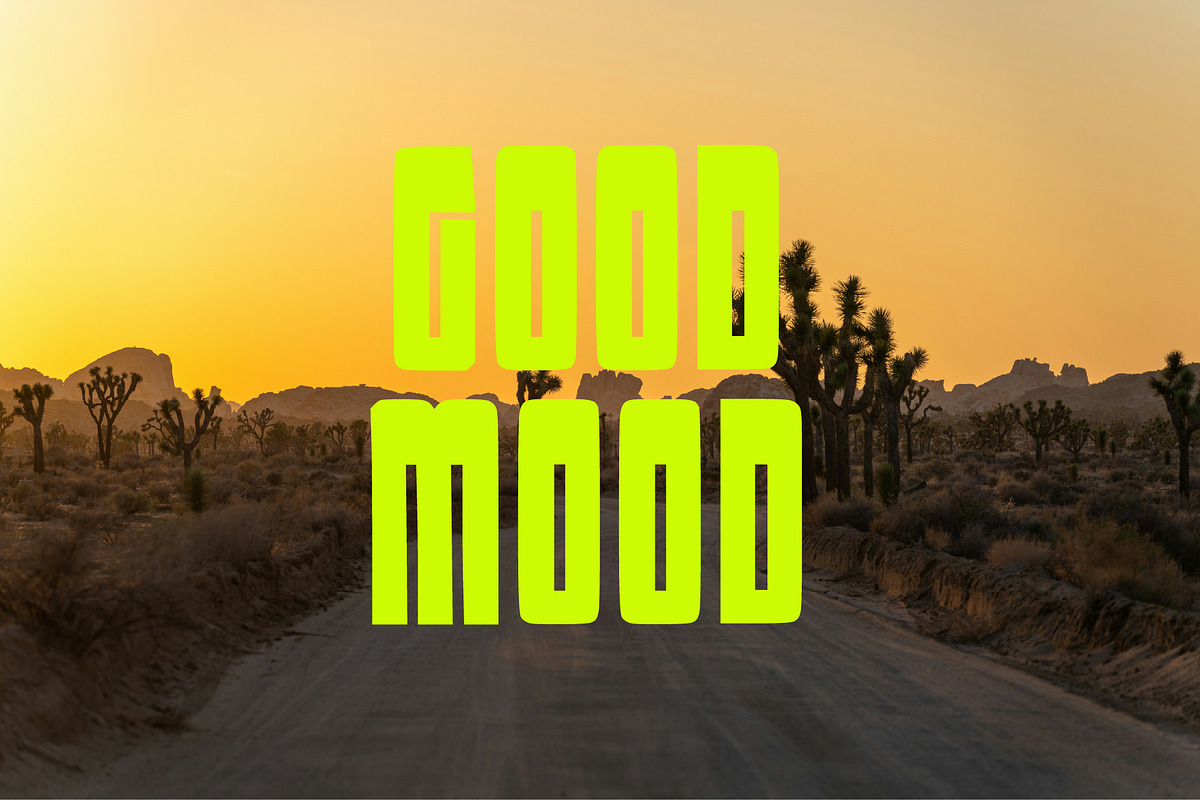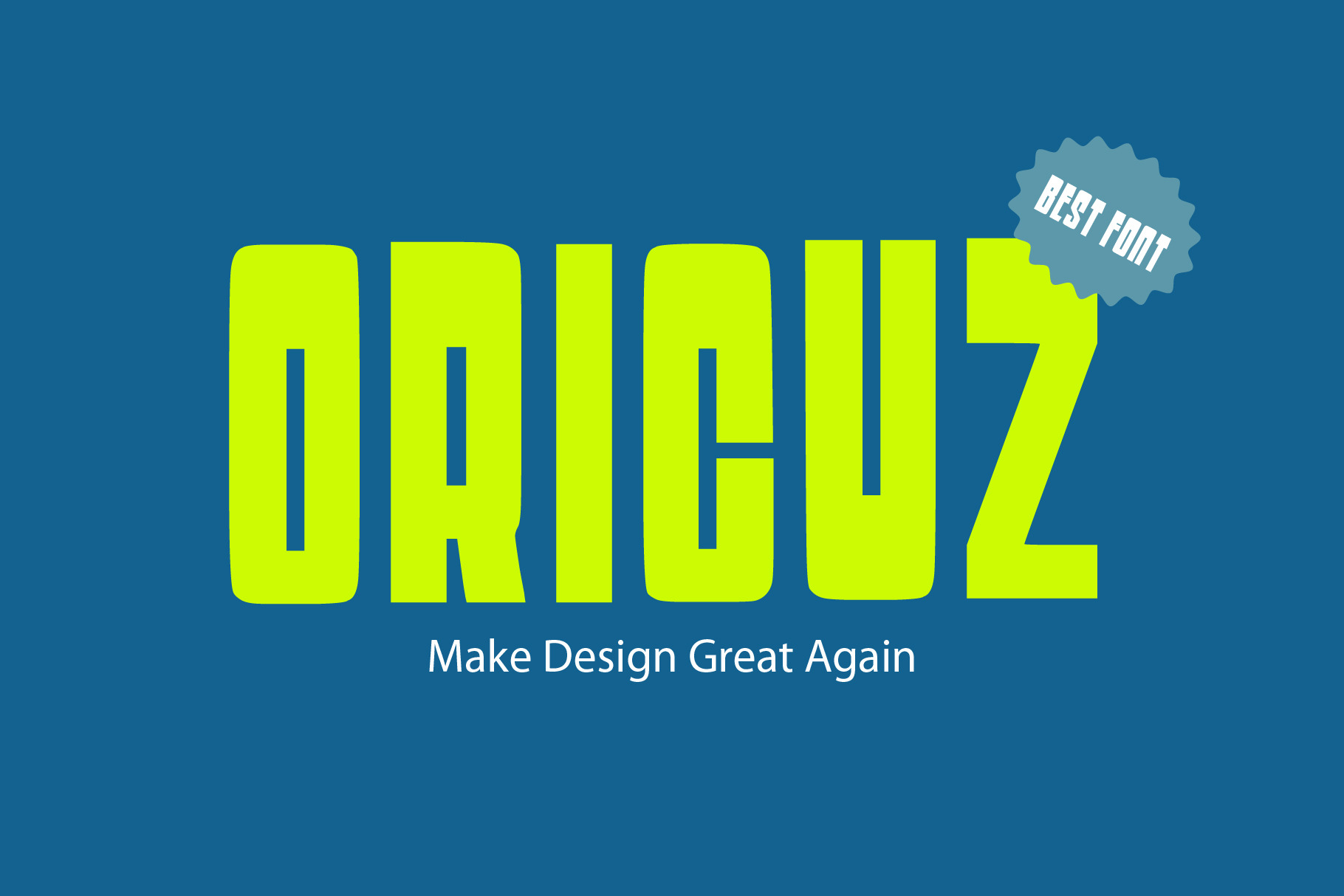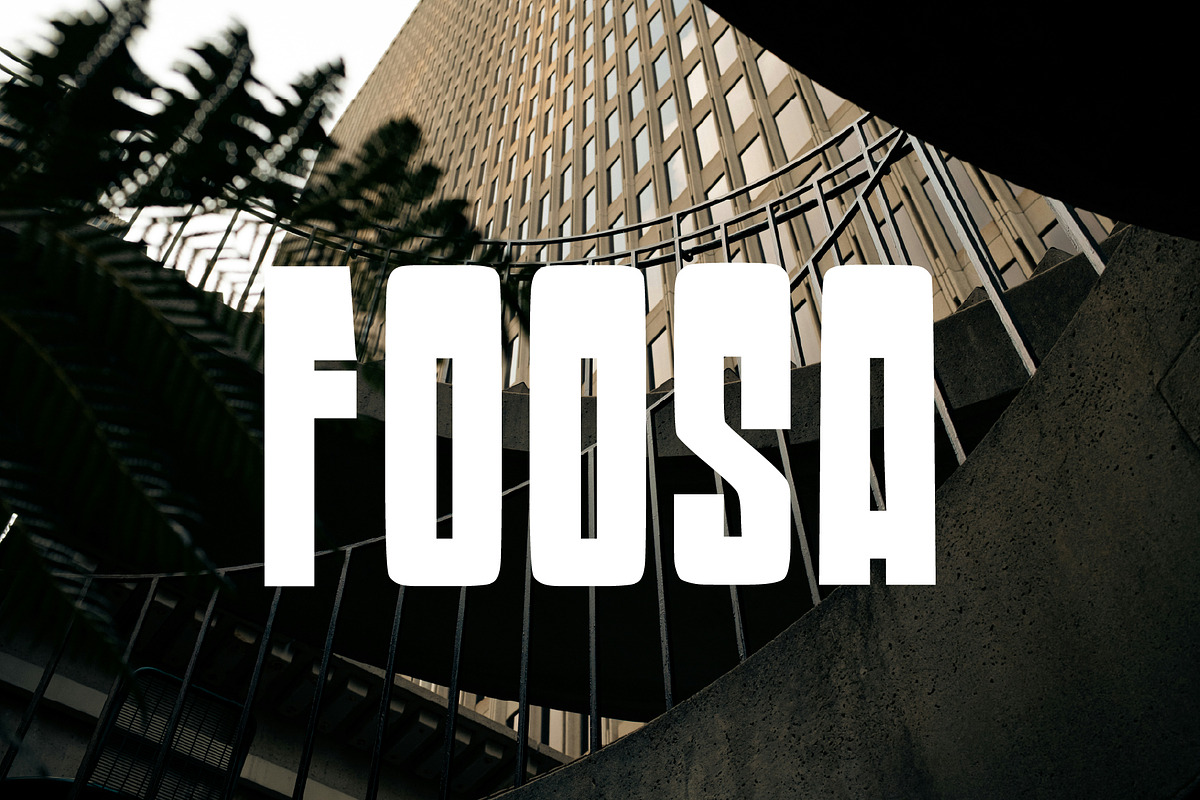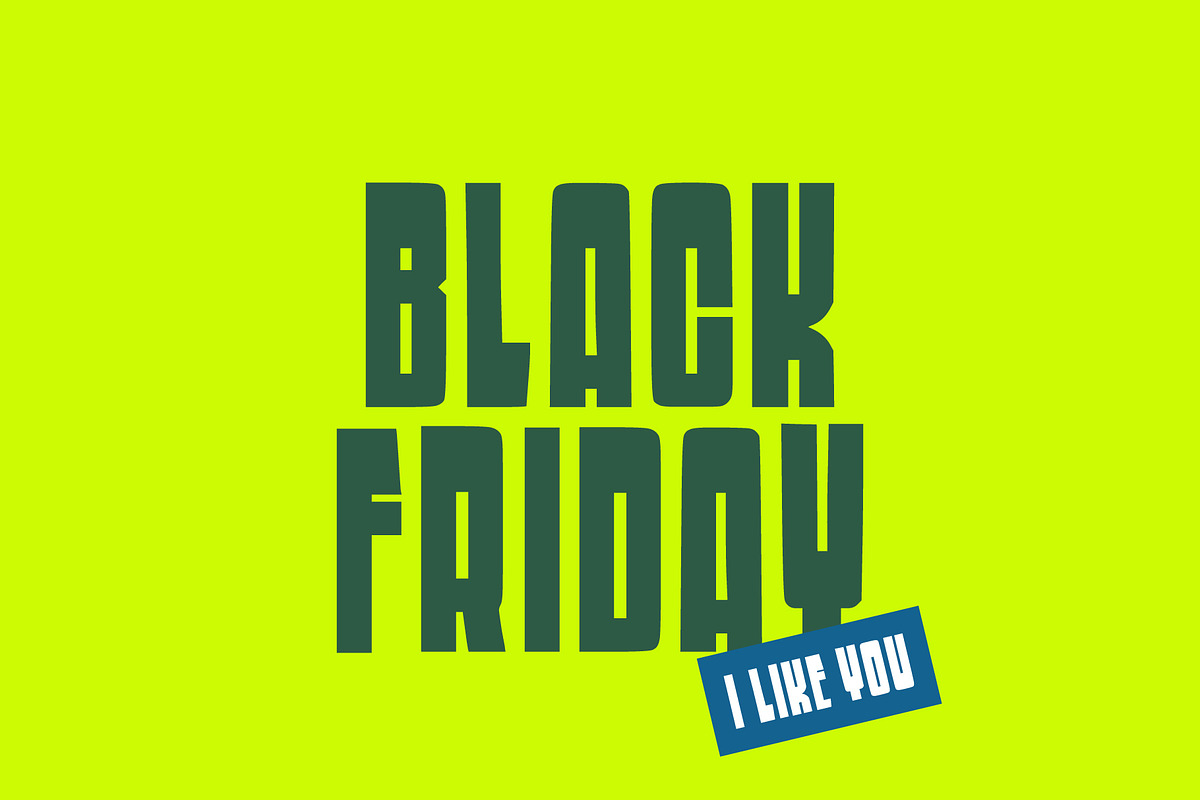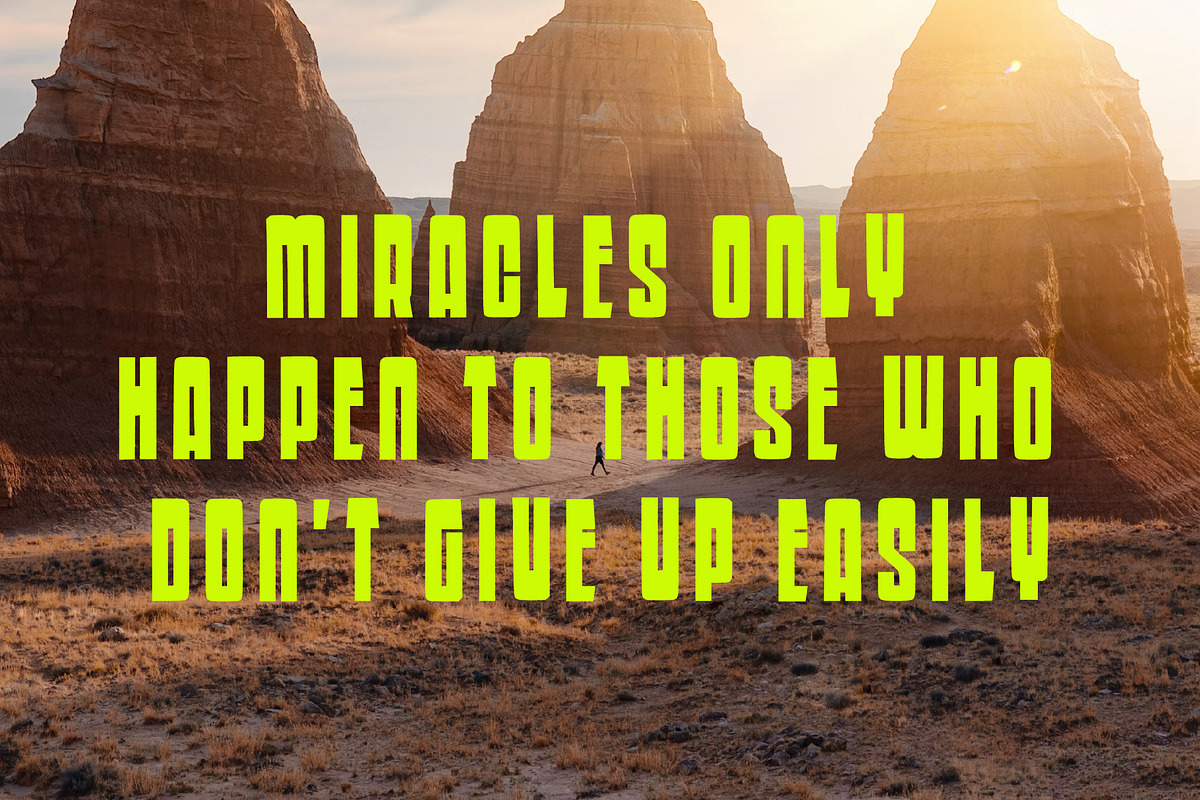
ORICUZ - Bold Ultra-Condensed Font
ORICUZ, a sleek and sharply styled ultra-condensed font crafted for standout display work. With dramatic verticality, high contrast strokes, and edgy ink traps, ORICUZ delivers a punch of bold energy to your designs. From high-fashion headlines to striking packaging and edgy editorial layouts, this typeface is all about making an unforgettable impression.
Every curve, corner, and ligature in ORICUZ has been carefully refined to maintain tight rhythm and a clean, impactful presence - especially at large sizes. The ultra-condensed letterforms allow for space-saving typography without sacrificing readability or flair.
ORICUZ works beautifully in bold logos, contemporary posters, album art, and lifestyle-driven branding. Whether you’re creating digital content or printed materials, its sharp design and confident tone will elevate any concept.